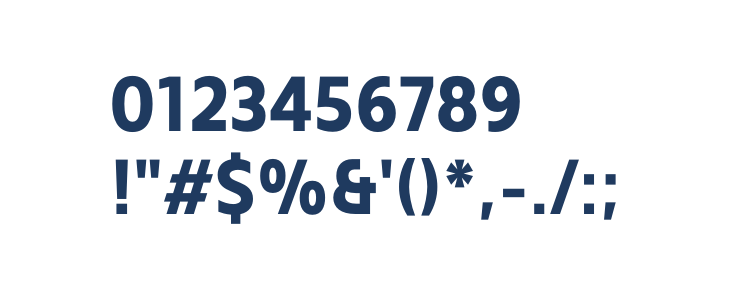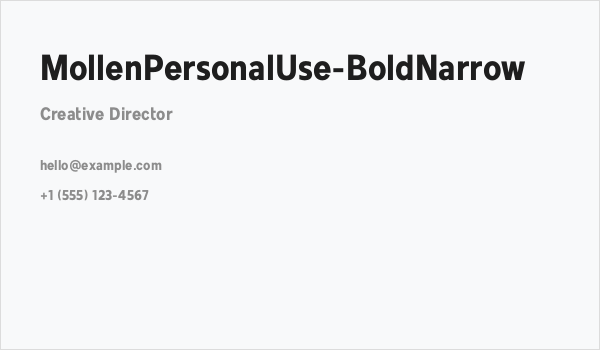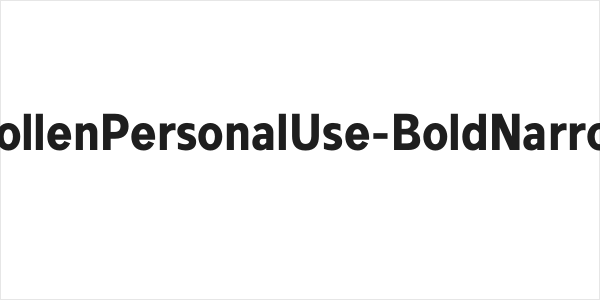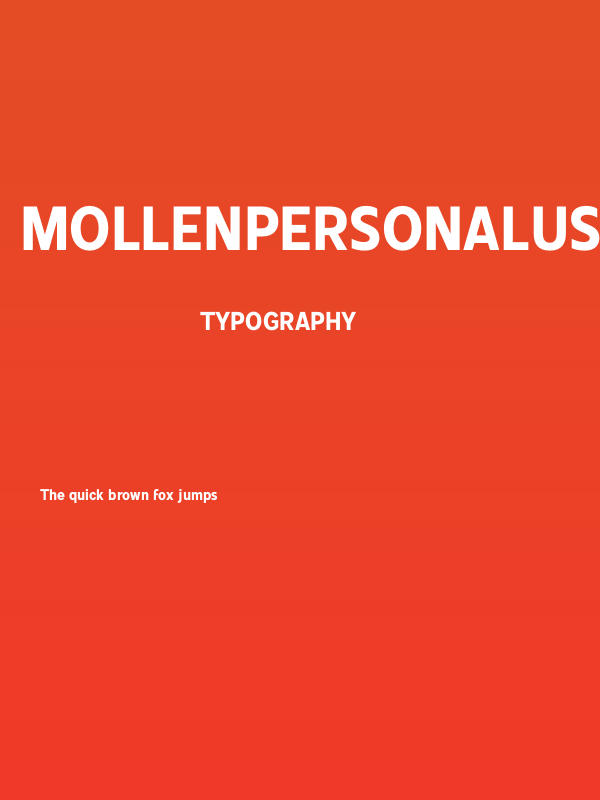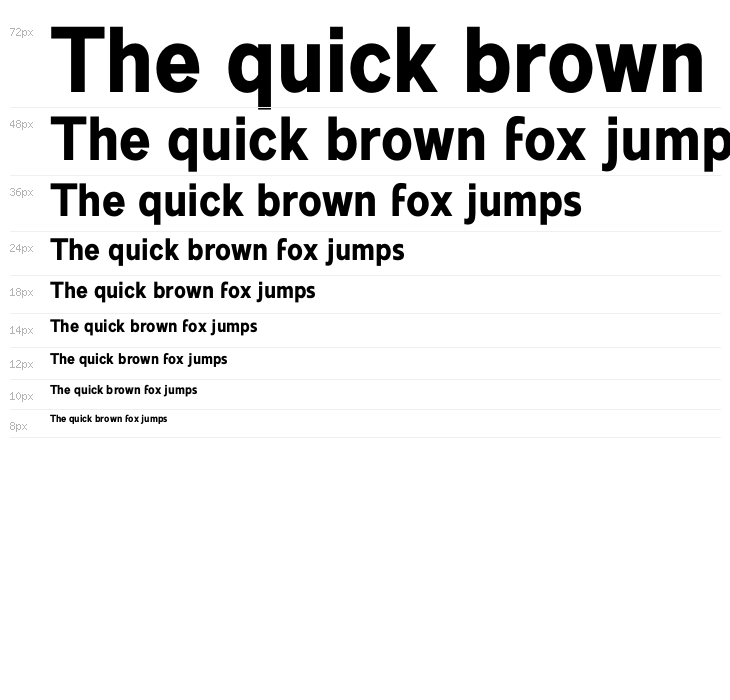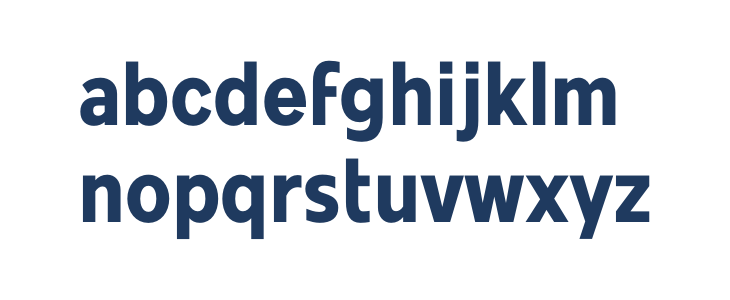
MollenPersonalUse-BoldNarrow Font
MollenPersonalUse-BoldNarrow Description
This font features a bold and narrow design, characterized by its strong, impactful presence. The uppercase and lowercase letters are uniformly bold, with a consistent stroke width that enhances readability. The numerals and special characters maintain the same boldness, ensuring a cohesive look across all text elements. The font's design is clean and modern, making it suitable for a variety of applications where clarity and emphasis are required. Its narrow width allows for efficient use of space, making it ideal for headlines and titles.
| Proposed Projects | Ideal for headlines, posters, advertising, and branding projects where a strong visual impact is needed. |